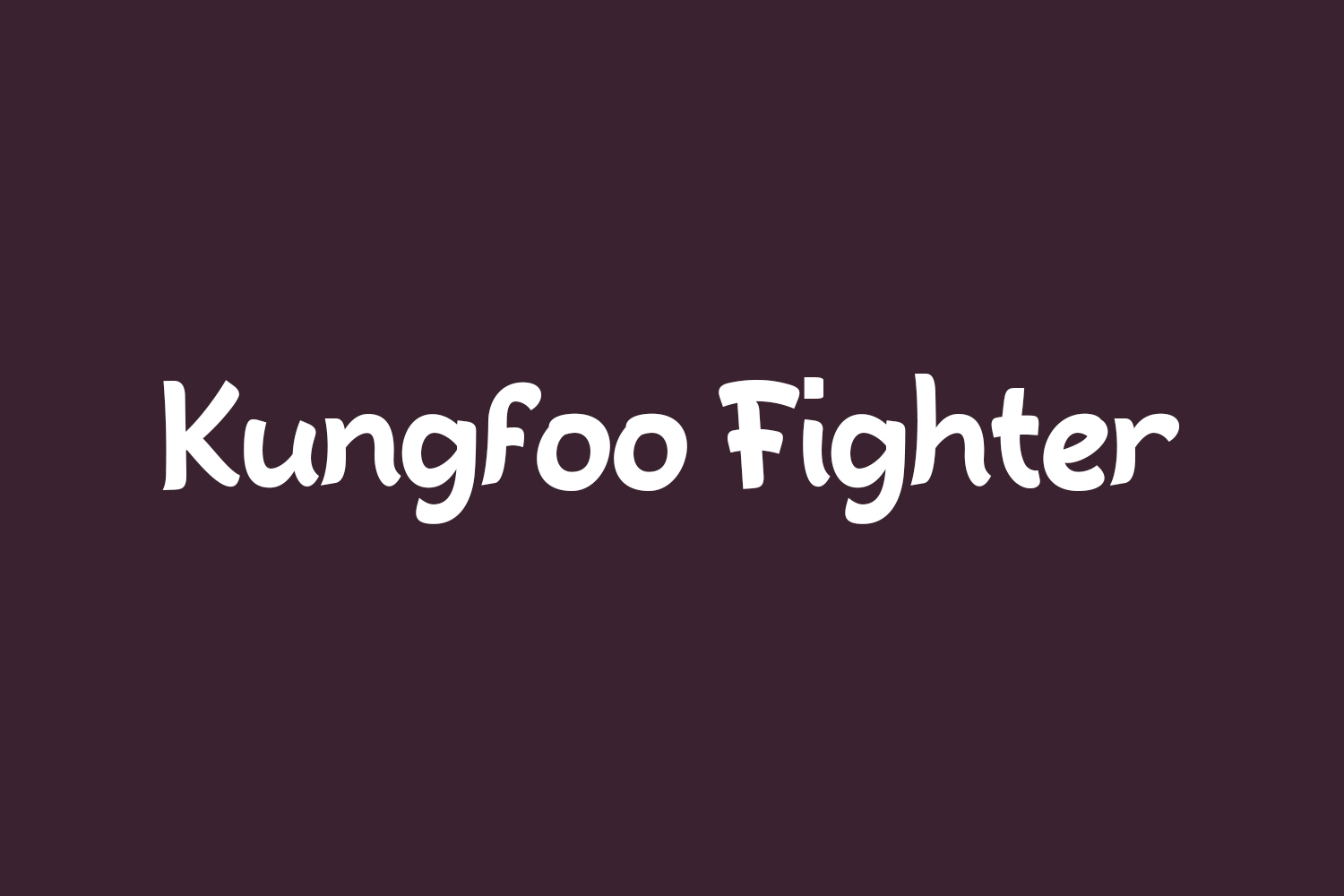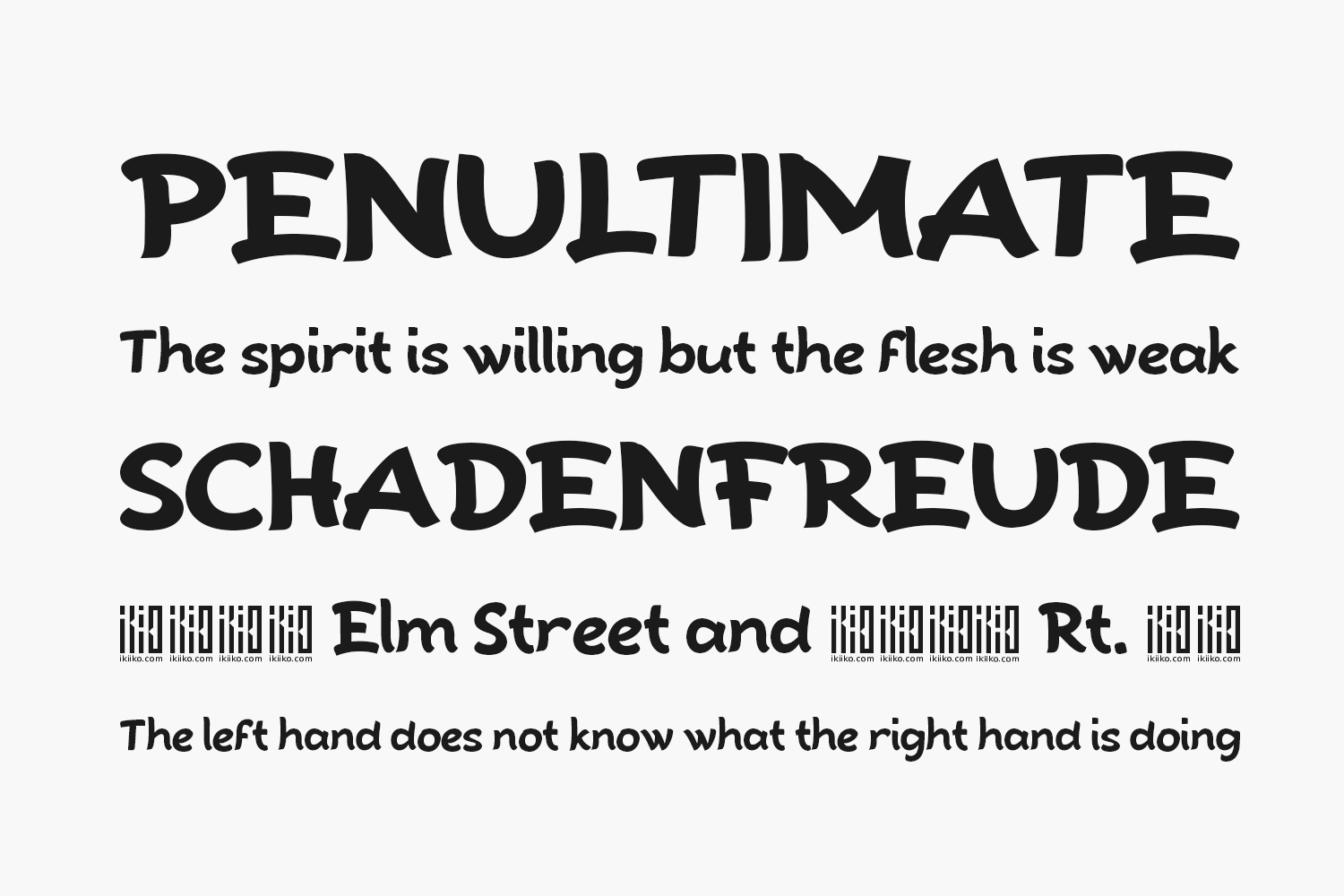
Embrace the cool aesthetic of Kungfoo Fighter Free Font, a display font infused with inspiration from Asian character brush strokes. With a bold, distinctive, and flexible vibe, this font features brushed characters, making it an excellent choice for poster designs, food and beverages, Asian-themed content, community logos, magazines, quotes, or as a stylish text overlay on any background image. Elevate your design with the unique charm of Kungfoo Fighter. Kungfoo Fighter Free Font was designed by Ikiiko Type is a demo and free for personal use only. Please purchase the full version for commercial use.